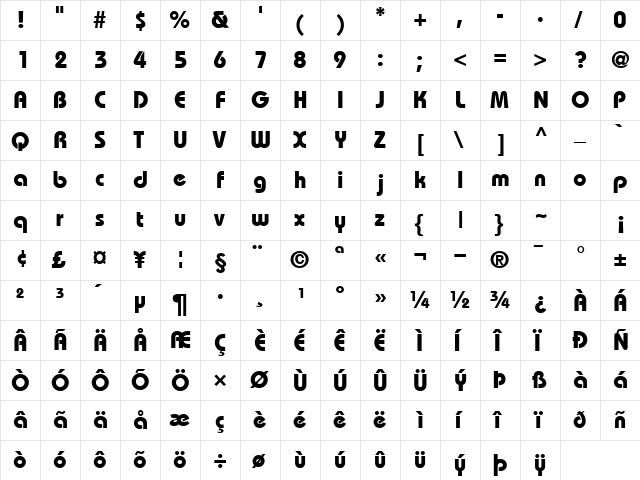
DynameBlackSSK Regular
DynameBlackSSK takes a measured approach to typography — its balanced proportions and neutral character make it a reliable workhorse for both digital and print work.